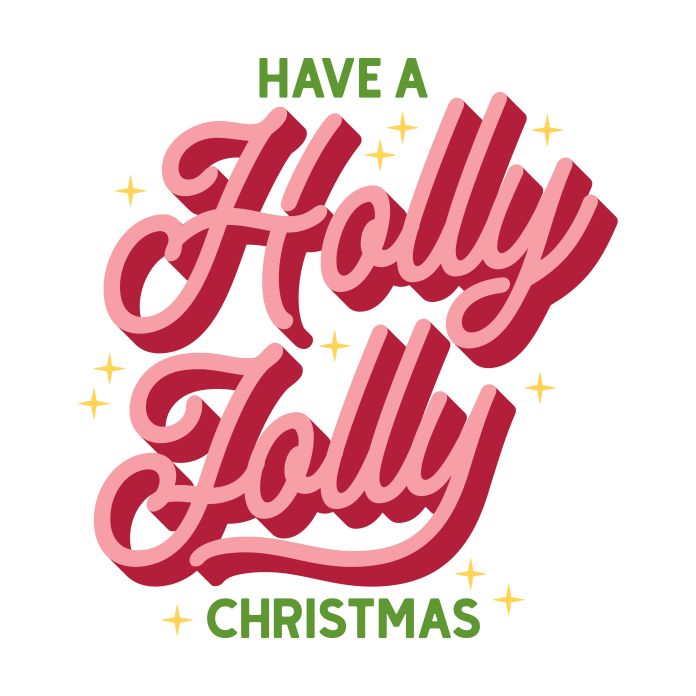
This "Have a Holly Jolly Christmas" design would look cute on an ornament, tote, scrapbook page, tshirt or sign! Look around - we have almost 10000 designs in the Silhouette store. Jillibean Soup has been part of the paper crafting community since 2008. We follow trends and offer fun, innovative, hip designs. Our designs can be used for not only paper crafting but sign-making, t-shirt designs, laser designs and so much more! Do a search for our designs – we offer just about everything you needyou’re your craft! Check out our Seasonal, Funny, Adult, Sarcastic, Christian, Character, Floral, Monogram and and Whimsical designs!